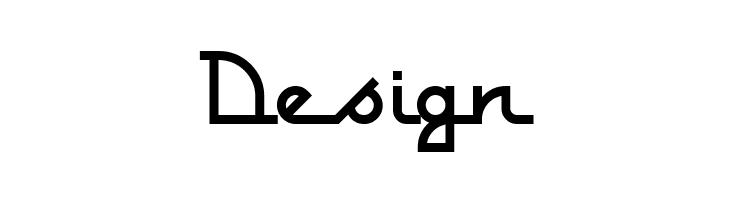
Highlight_linesandoutli Regular Font
- Font: Highlight_linesandoutli Regular
A playful font combining geometric and cursive elements with bold strokes.